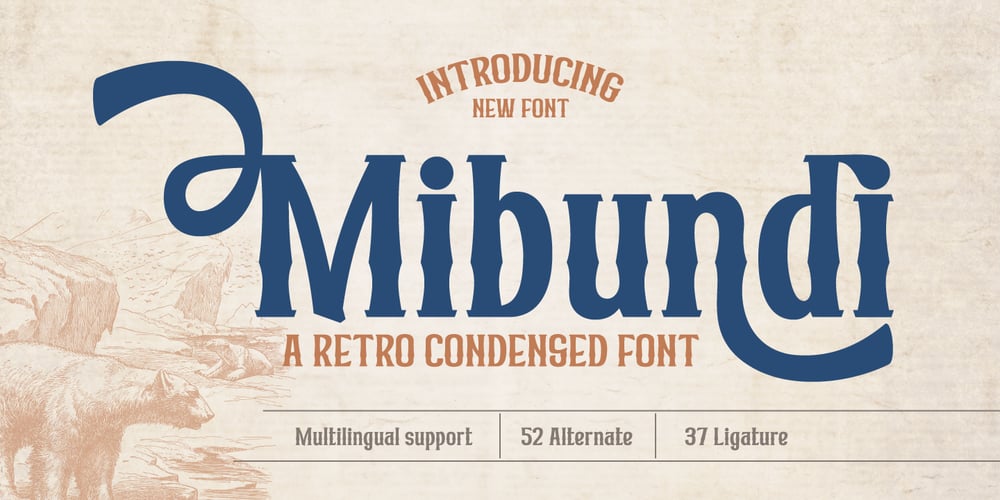
Mibundi Font Family was designed by Rozikan and published by Twinletter. Mibundi contains 1 styles and family package options. Mibundi is ideal for applications that require a classic, retro, vintage, or condensed look. This font’s ligature, alternative, and multilingual capabilities provide you the flexibility and creativity you need to convey your thoughts perfectly.Mibundi is a handcrafted font with unique and eye-catching letter shapes that will bring the finishing touch to your project. The compact design makes it suitable for use in a wide range of media, from print to digital.Mibundi also supports multilingualism, ensuring that this typeface can be used easily over the world. Using this typeface will undoubtedly capture the attention of potential customers and deliver significant value for your project.What’s Included :- File font- All glyphs Iso Latin 1- Alternate, Ligature- Simple installations- We highly recommend using a program that supports OpenType features and Glyphs panels like many Adobe apps and Corel Draw so that you can see and access all Glyph variations.- PUA Encoded Characters – Fully accessible without additional design software.- Fonts include Multilingual support